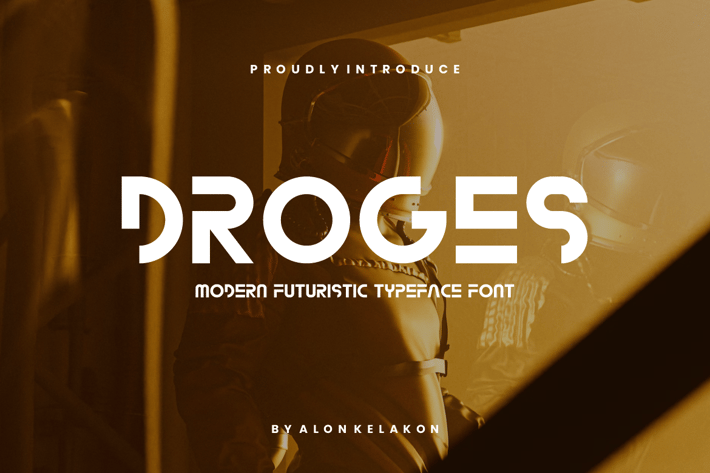
Droges - Modern Futuristic Font
Droges - Modern Futuristic Font Font is unique . Ready to use for your design like labeling, movie sceen, poster, movie title, gigs, album covers, logos, and much more.